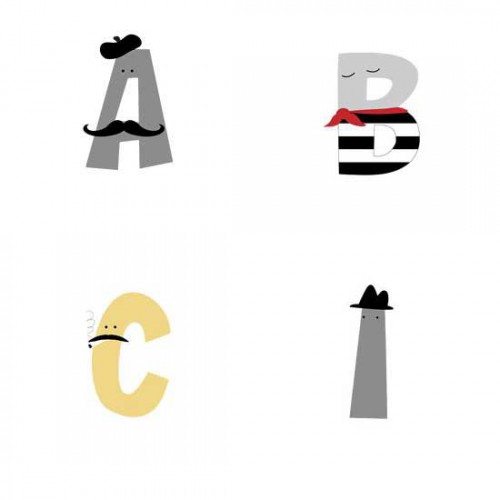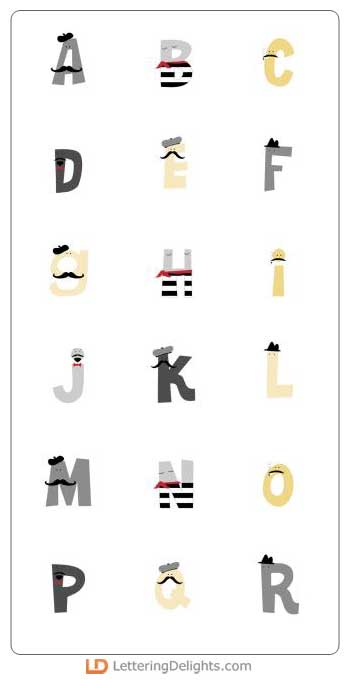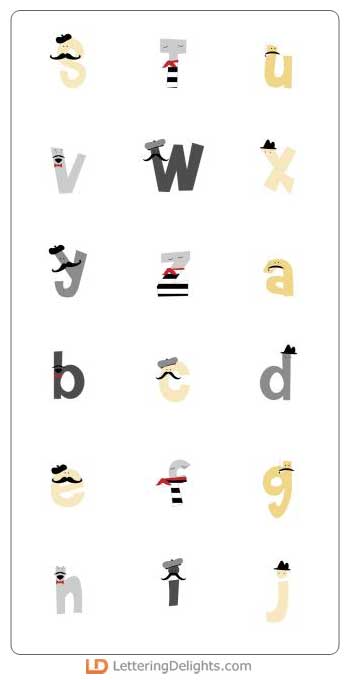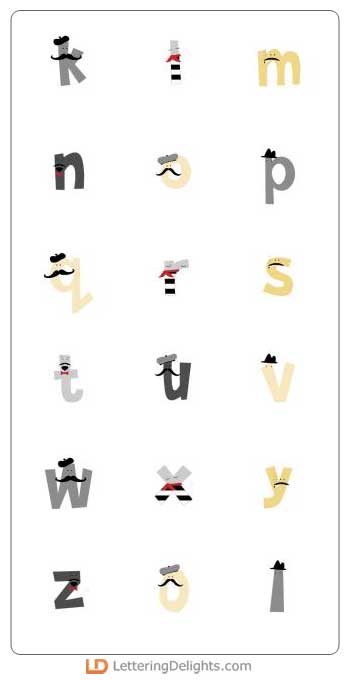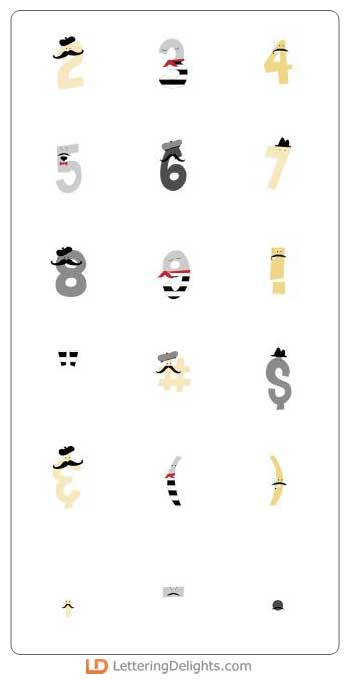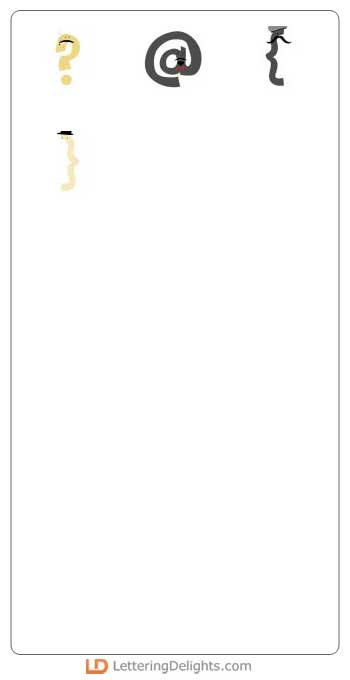
Adding a touch of Parisain flair is as easy as including the Monsieur Alphabet to you creative projects. (But don't let us stop you if you want to tell your husband that you need a 'fact finding' trip to France, too!)